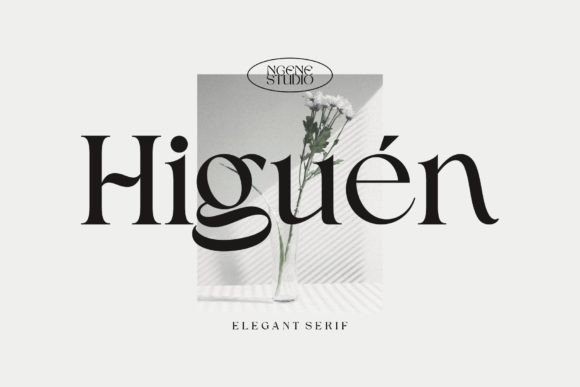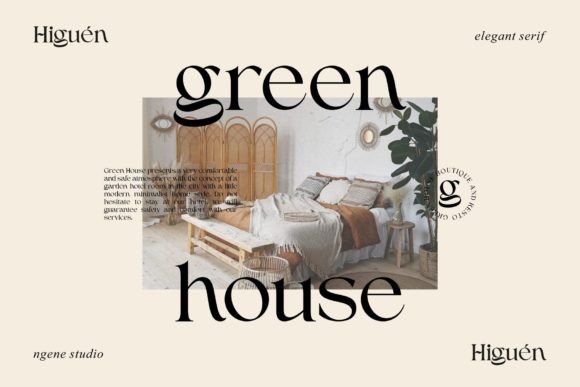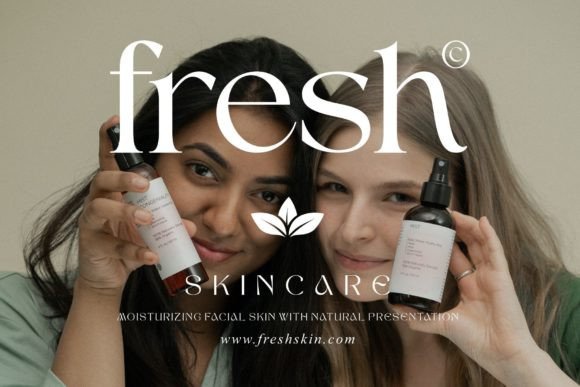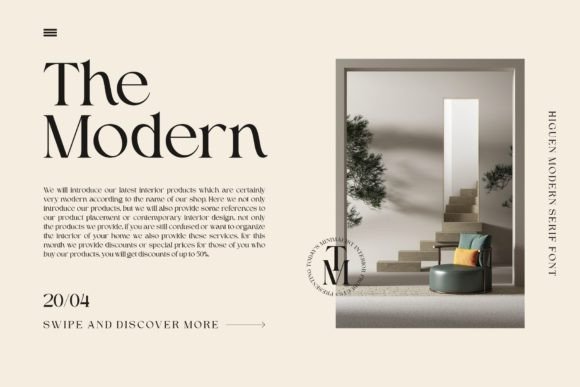
Higuen Font: Elegant Serif for Chic Branding & Logo Design
About the Higuen Font
The Higuen Font offers a perfect balance of form and function for your design needs. Higuen is a sophisticated, charming serif font with a fashionable touch. Specially designed for luxury, elegant, feminine projects, this font is perfectly suitable for creating modern, chic designs.
Higuen excels in headline use, particularly for branding projects targeting a sophisticated female demographic, and works beautifully in short-form text on luxury packaging or invitations. Its elegance also lends itself well to high-end product brochures or fashion editorials. However, its decorative nature makes it less suitable for body copy or UI elements requiring high legibility.
Pairing Higuen with a clean sans-serif like Helvetica Neue for body text provides a strong contrast and enhances readability. For a more playful feel, consider pairing it with a handwritten script font, keeping the script’s usage minimal to avoid visual clutter. A geometric sans-serif would offer a modern, balanced contrast, adding a touch of edge to the overall design.
Higuen’s overall personality is elegant and refined, projecting a sense of sophistication and understated luxury. Its charm lies in its delicate details, making it ideal for brands aiming to convey quality and femininity.